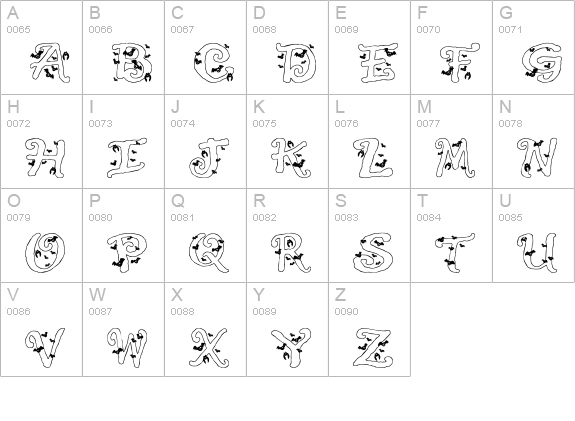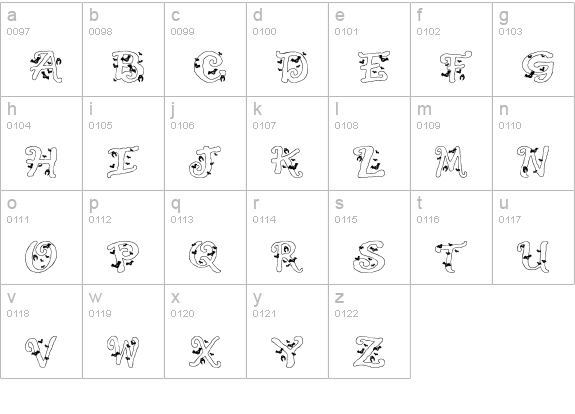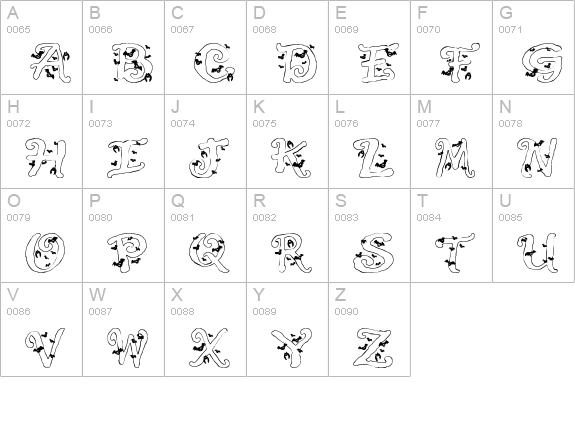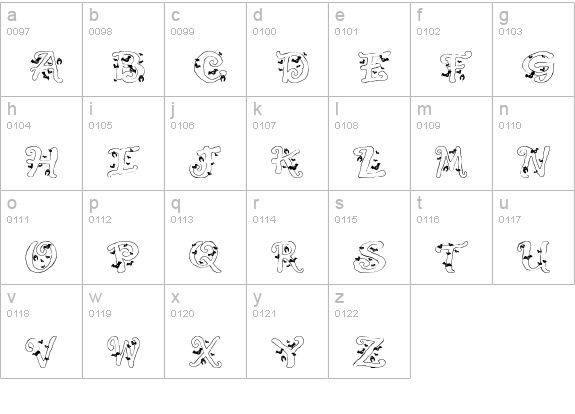
Introducing the bewitching Halloween Bats font, a hauntingly beautiful typeface that will send shivers down your spine. This font captures the essence of the spooky season, with its intricate bat-inspired letterforms that create an eerie atmosphere on any project. The Halloween Bats font is the perfect choice for all your Halloween-themed designs. Whether you're creating invitations for a costume party, designing flyers for a haunted house, or crafting spooky social media graphics, this font will add a touch of frightful fun to your creations. What sets the Halloween Bats font apart is not only its chilling design, but also the fact that it is completely free. Yes, you heard that right! This font is freely available to download at FontsMarket.com, the ultimate destination for all your font needs. You don't have to spend a dime to bring the spirit of Halloween into your designs. But don't let the word "free" fool you. The Halloween Bats font is of the highest quality, crafted with precision and attention to detail. Each letter is meticulously designed to resemble a bat in flight, with elegant curves and sharp edges that evoke a sense of mystery and intrigue. With its versatility and unique charm, the Halloween Bats font is sure to become a staple in your font collection. It is compatible with various design software and can be used in both personal and commercial projects. So go ahead, embrace the darkness and download the Halloween Bats font today from FontsMarket.com. Unleash your creativity and give your designs a spine-chilling makeover that will leave a lasting impression.